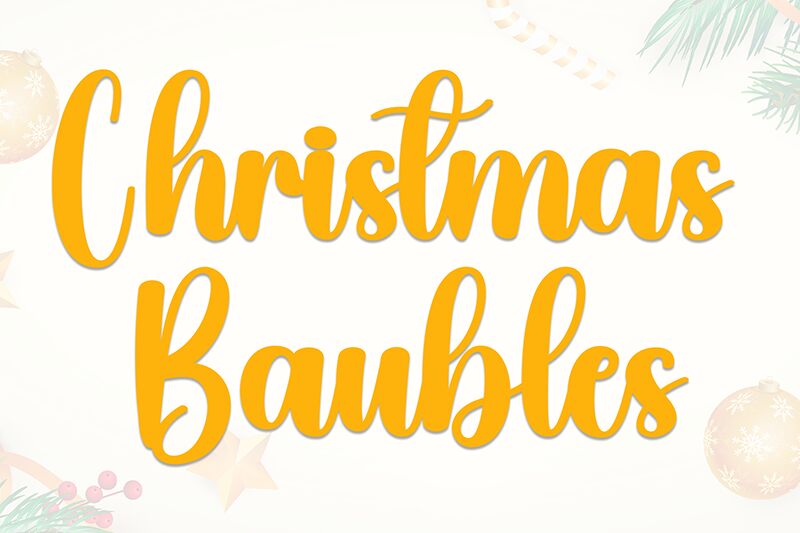
Christmas Baubles
Christmas Baubles font by Scratchones is a free brush font that features a festive display with fun yet bold letter designs. Rounded characters, smooth strokes, and tilted angles make each character perfectly fit your holiday designs including your greeting cards. With such charming work, you’ll never look twice to find another font before creating any Christmassy design.
Planning a Christmas event where ornaments are the theme of it all? Alright then, use this font for the invitation card, entry ticket, wrapping paper doodles or general backdrop art. Logotypes and digital publications like social media posts will also appear stunning when this holiday font is applied. LABELS, websites and mobile applications are other projects it fits in with ease.